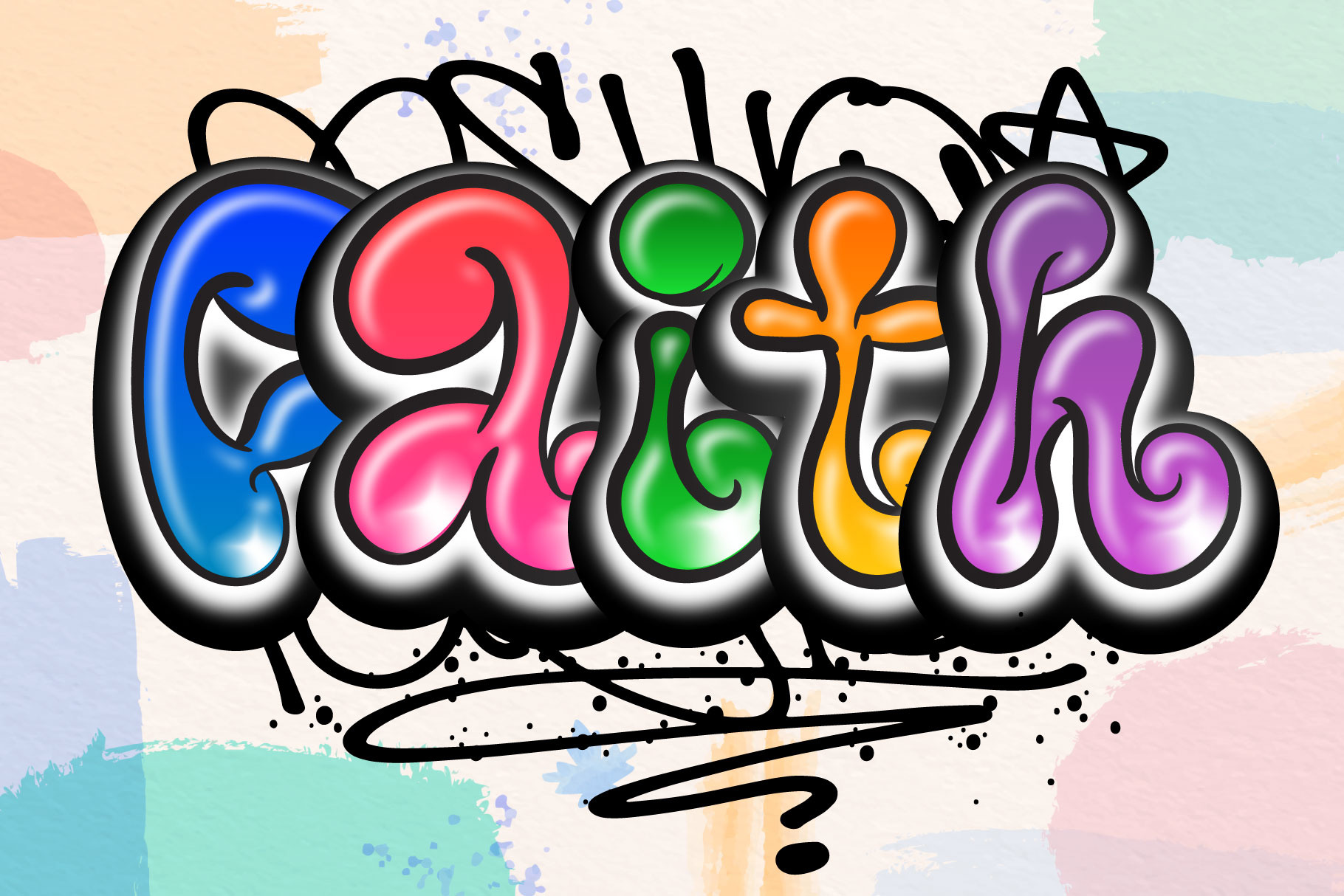
Faith Font
Faith Font is a dynamic and stylish graffiti font that brings an urban edge to your projects. This versatile typeface is perfect for adding a bold, street-inspired look to your designs. With its striking letterforms and authentic graffiti vibe, Faith Font is a must-have for any edgy project.